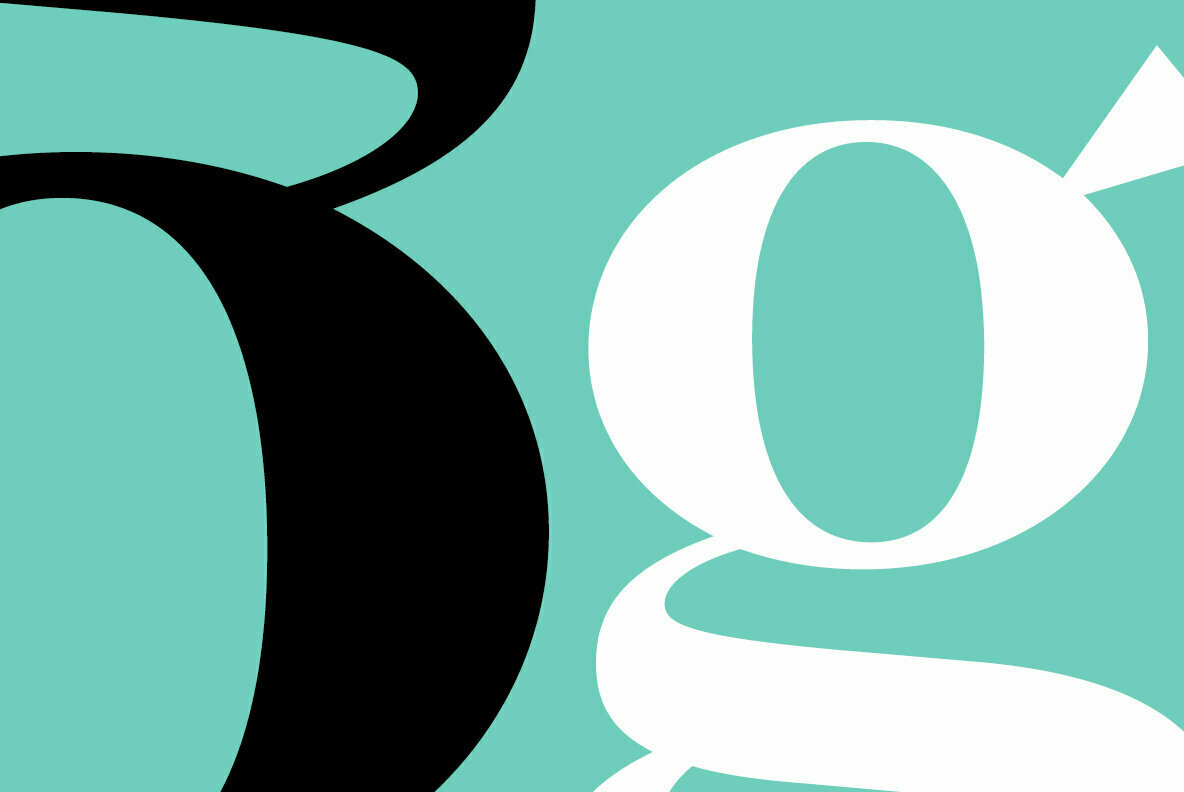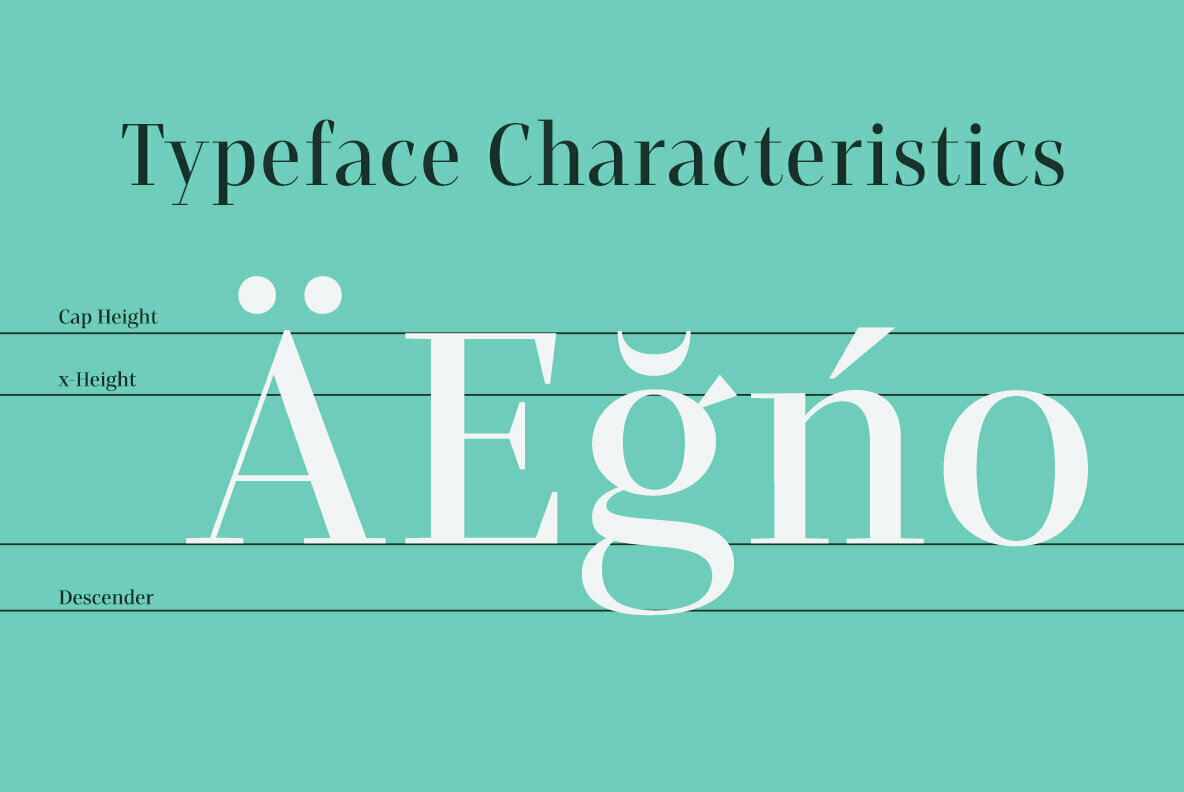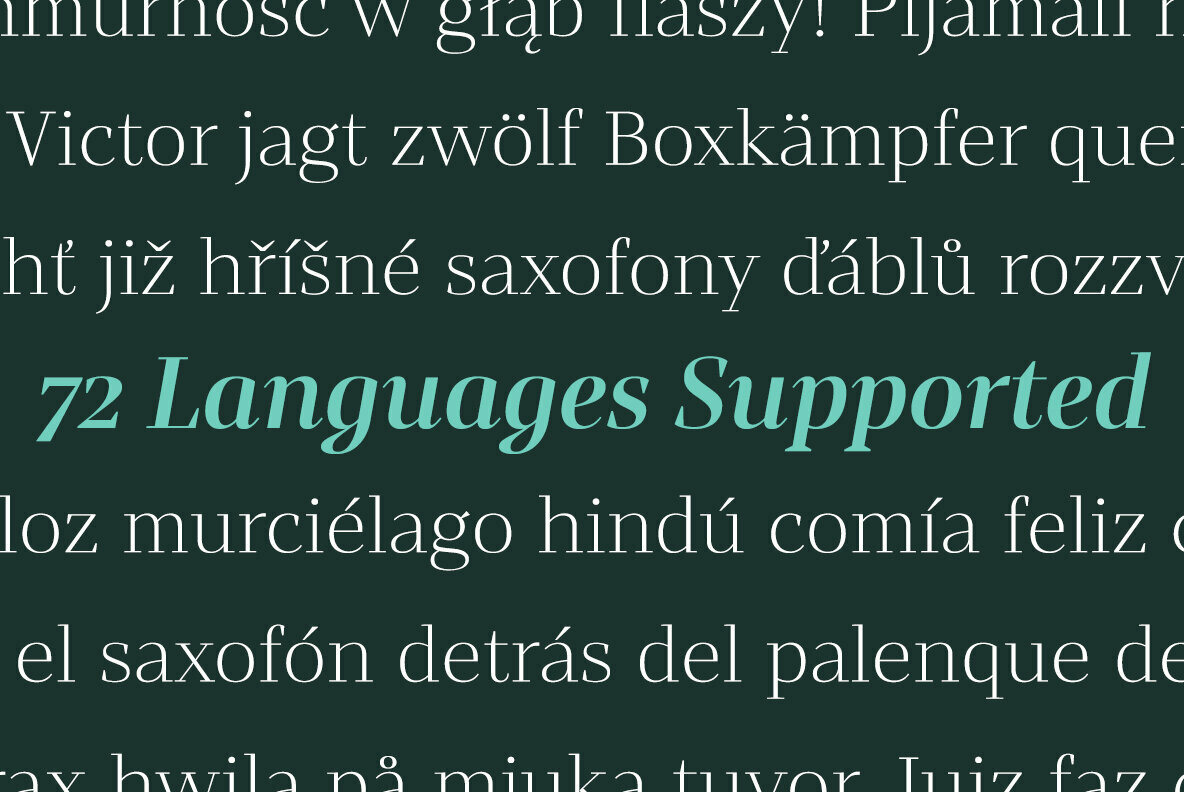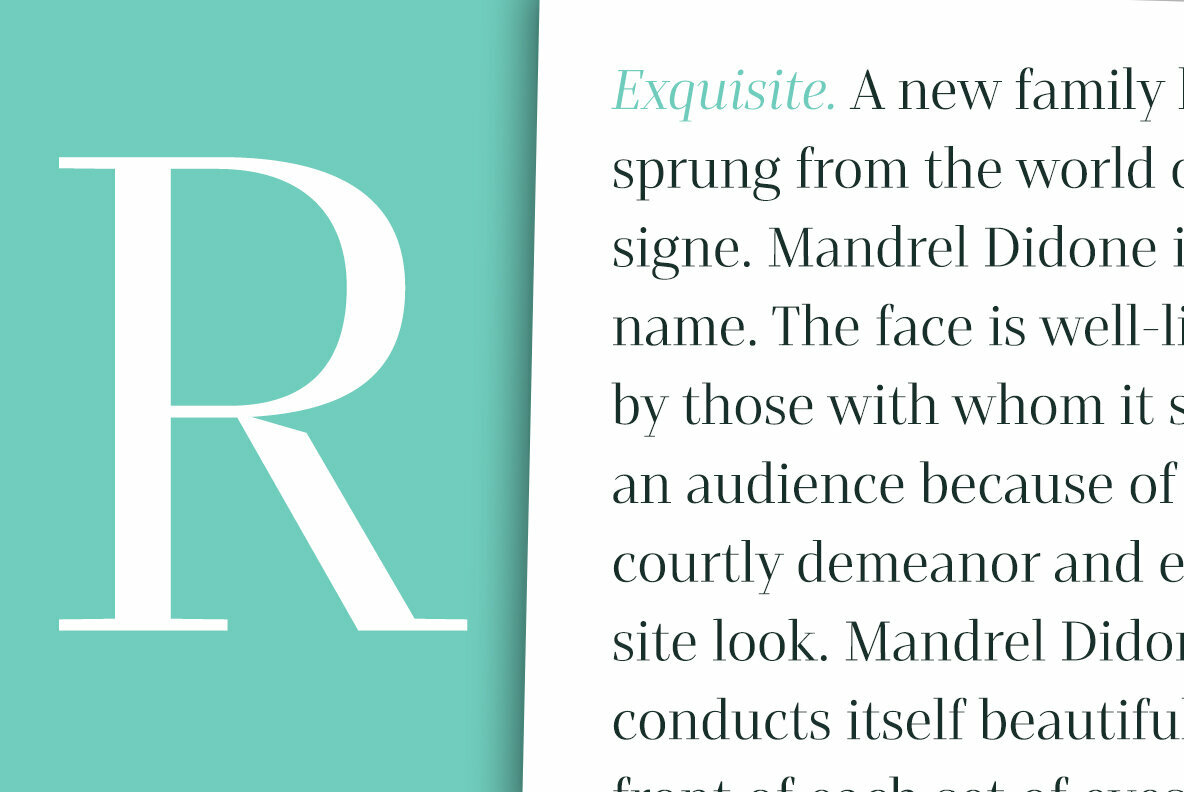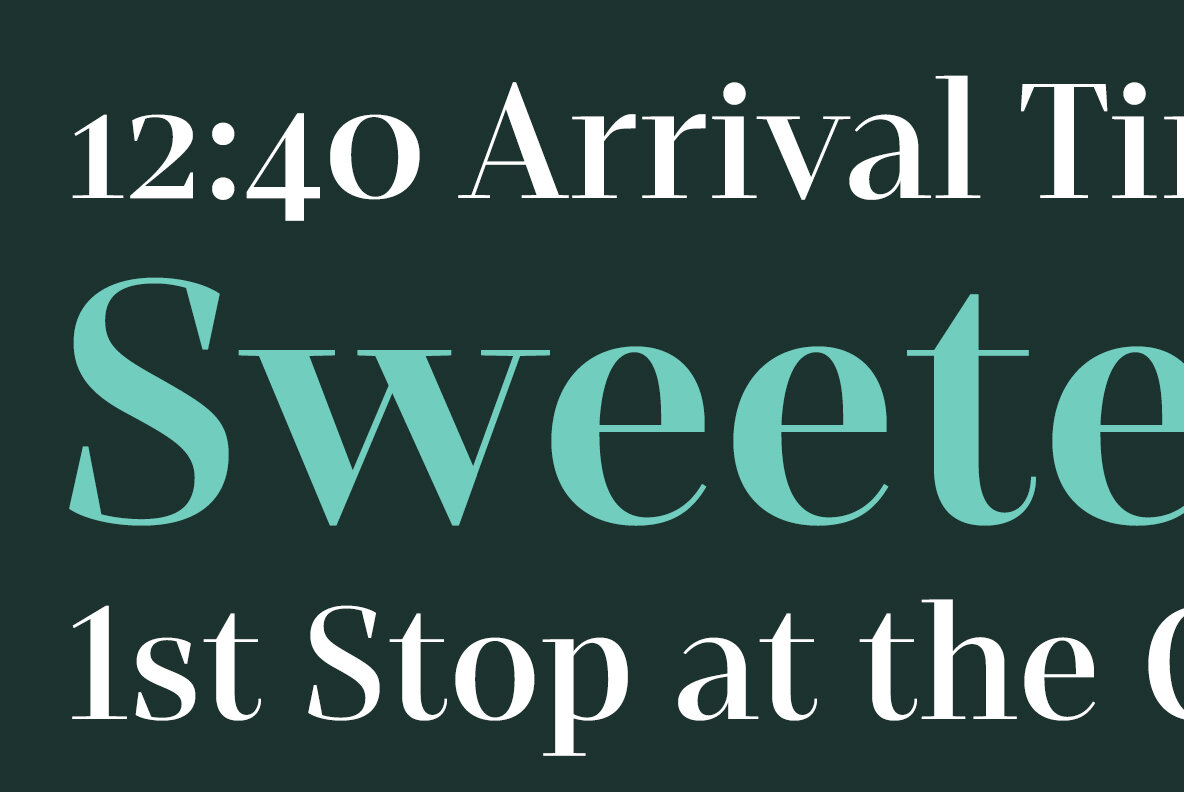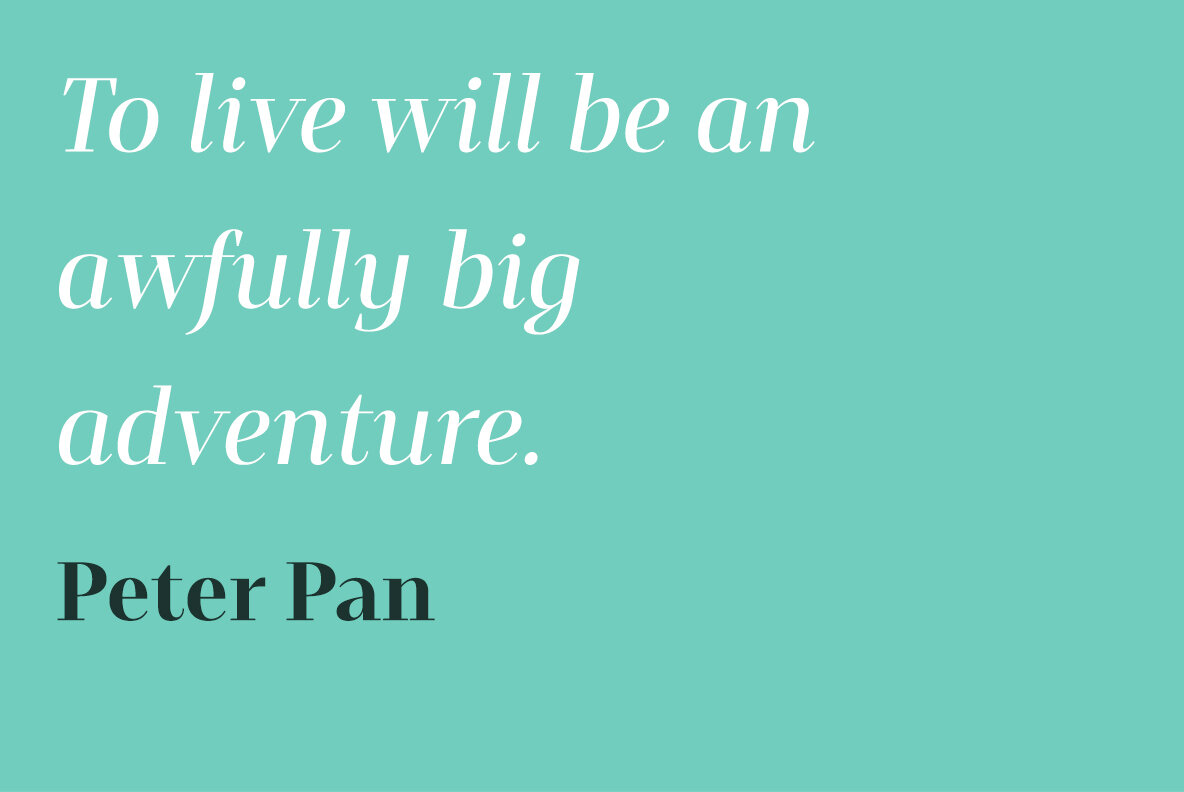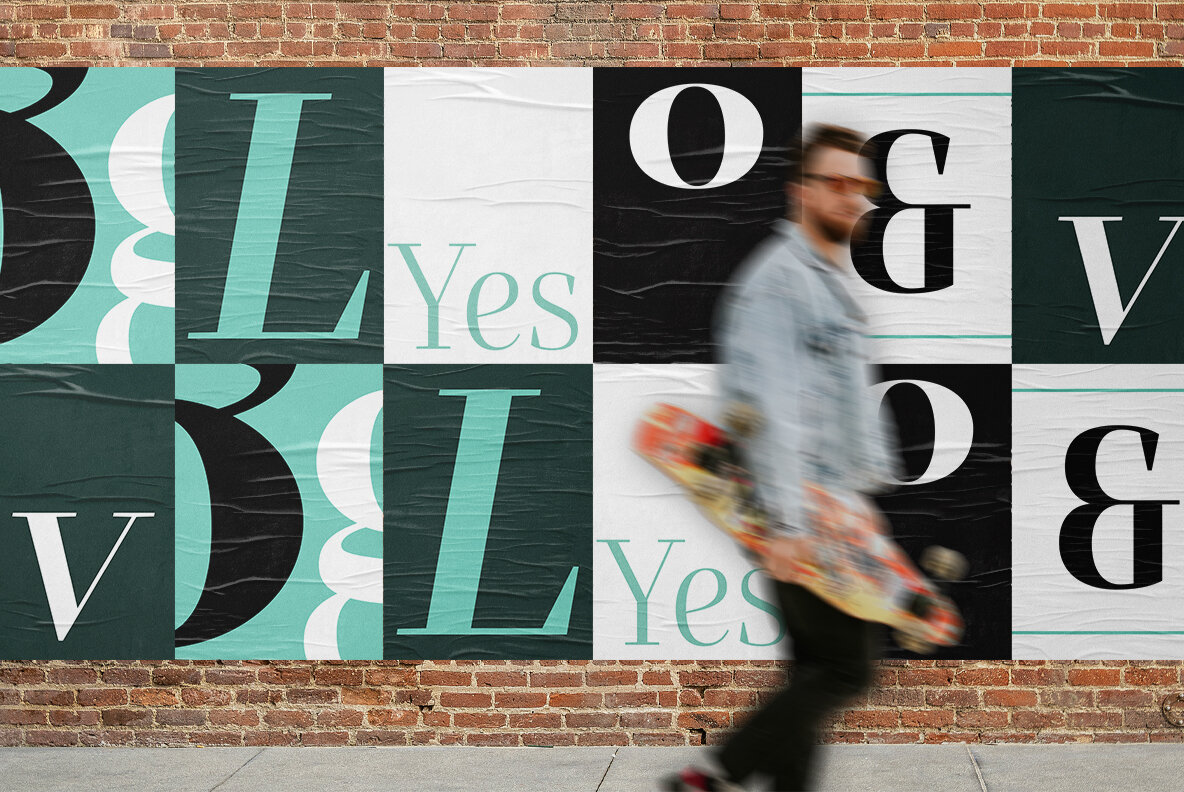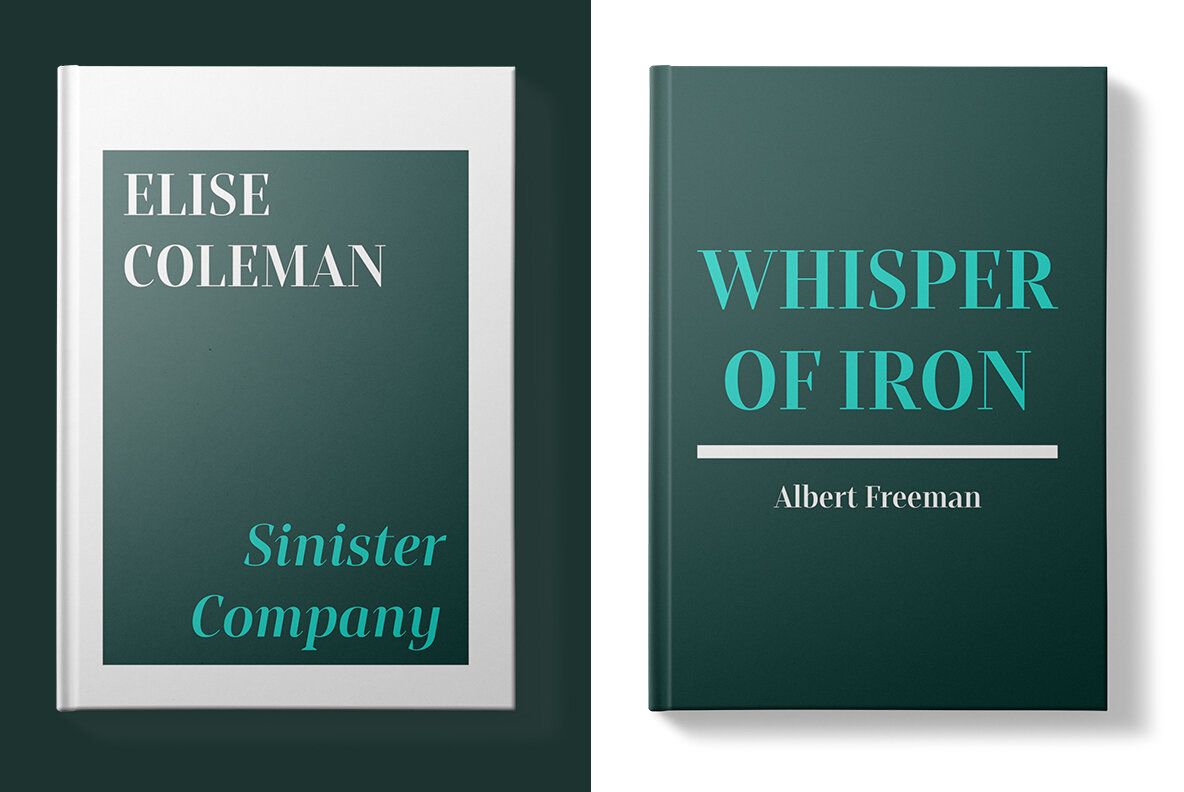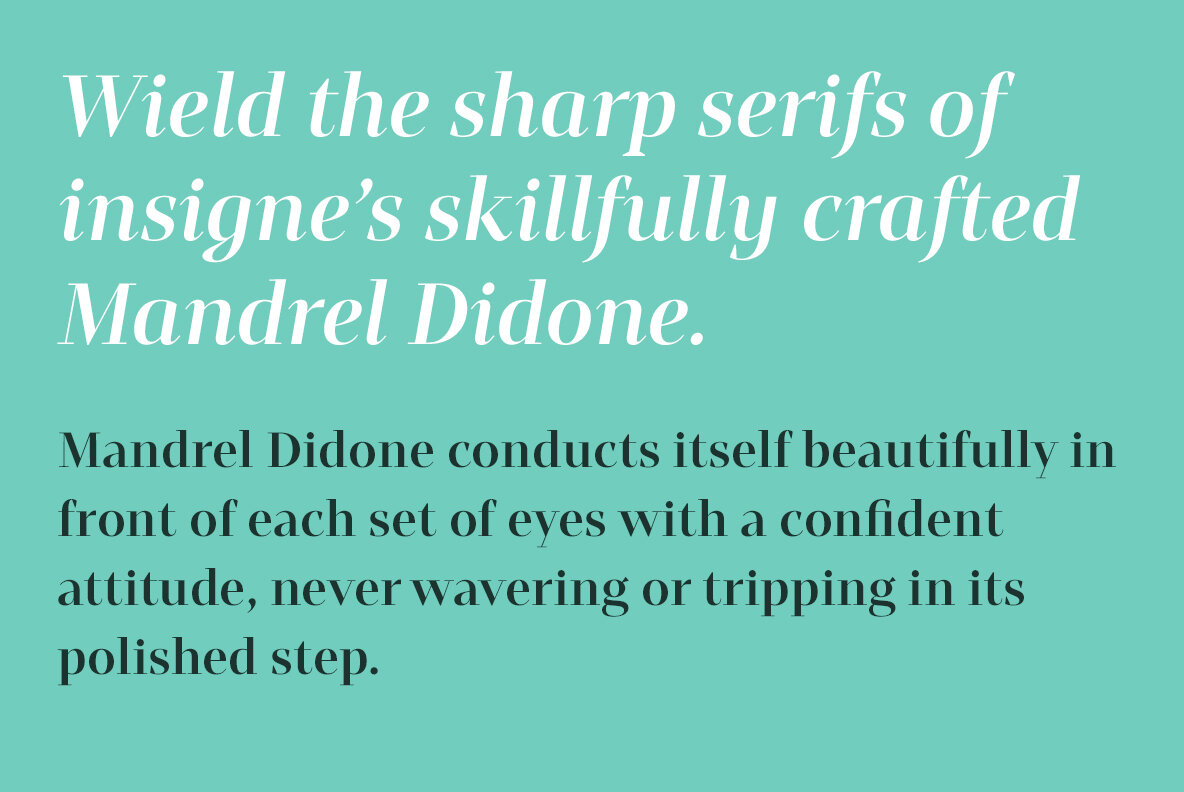
Mandrel Didone Font
This noble family consists of nine weights and their matching italics, ranging from Thin to Black. Mandrel Didone also comes with a plethora of OpenType options to let you embellish your text. The family's 500 glyphs and support for more than 70 languages are accompanied with ligatures, old-style figures, and stylistic sets.
Raise your glass in honor of the new Mandrel Didone! This champion, with its powerful serifs and great contrast, is ready to take on your challenge in many tests to come.